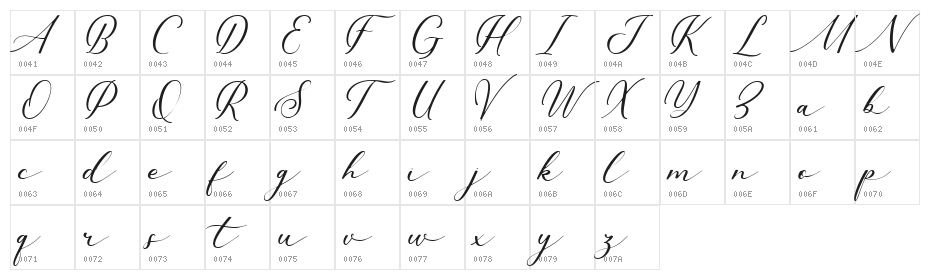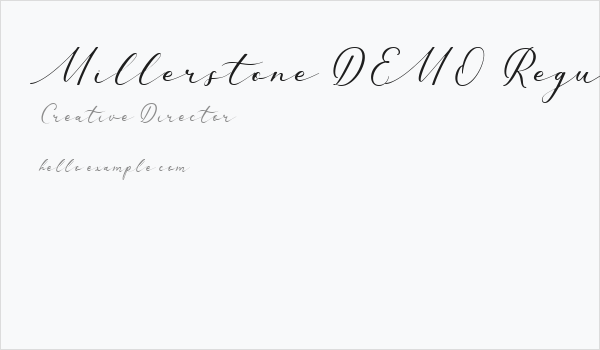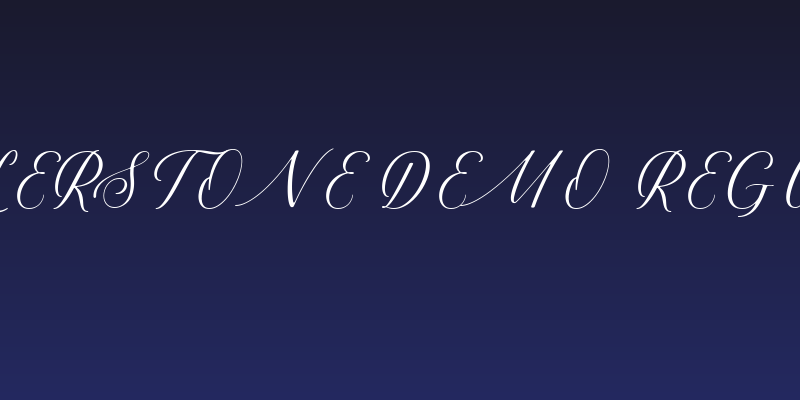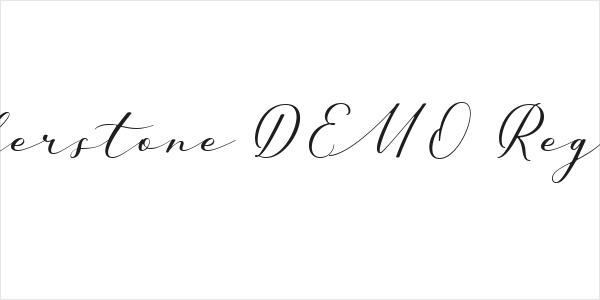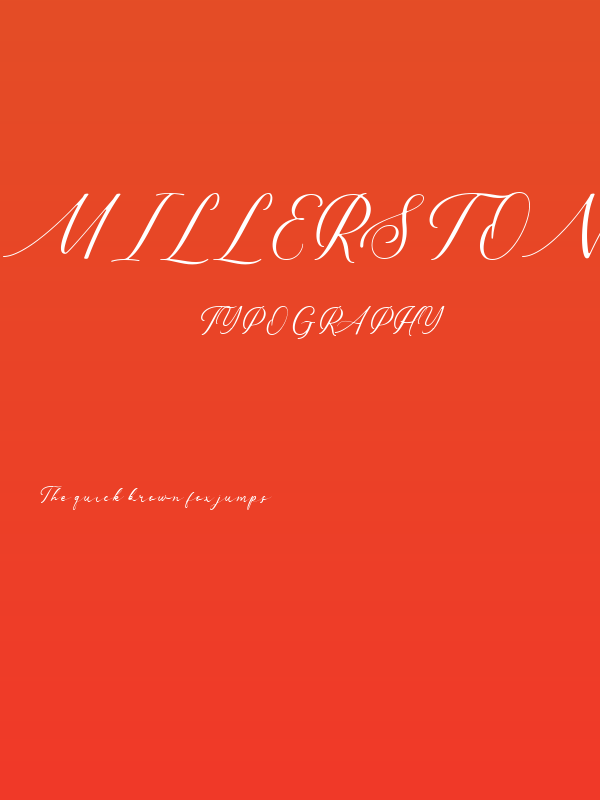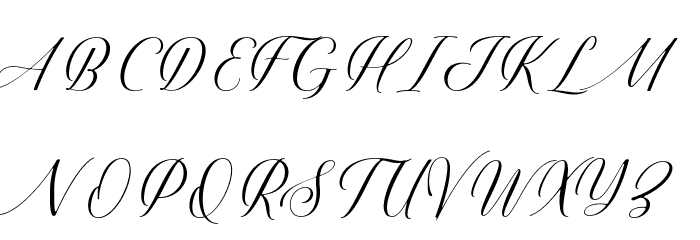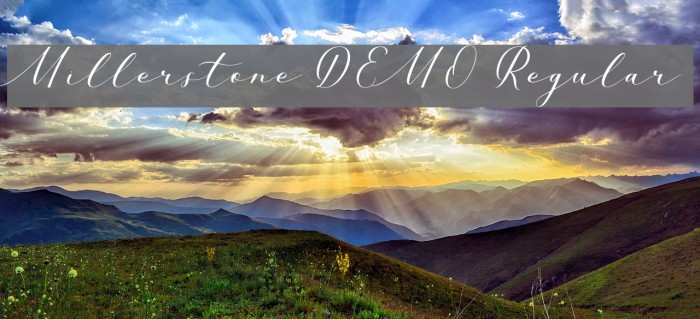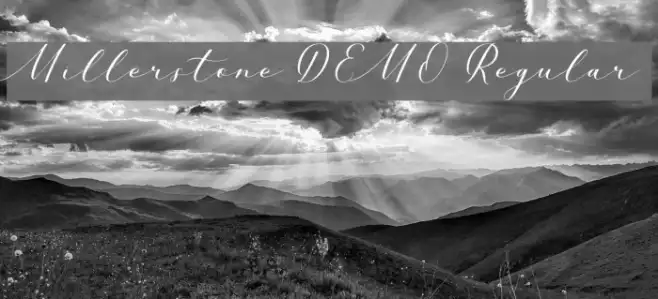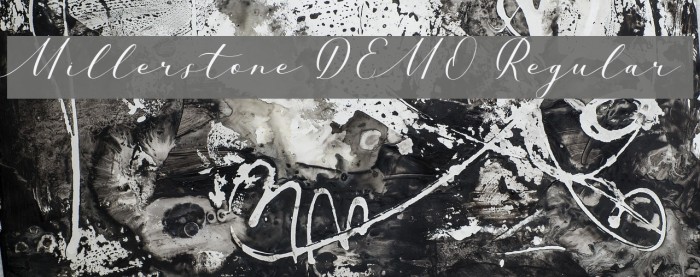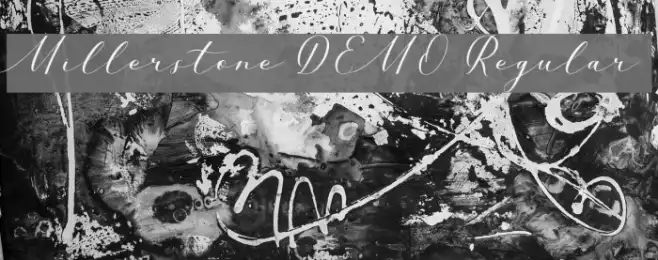
Millerstone DEMO Regular Font
Millerstone DEMO Regular Description
This elegant script font features flowing, cursive letterforms with a refined and sophisticated appearance. The characters are delicately crafted with smooth curves and graceful loops, giving it a luxurious and artistic feel. The uppercase letters are slightly more ornate, while the lowercase letters maintain a consistent fluidity. The font's thin strokes and high contrast between thick and thin lines add to its elegance, making it suitable for formal and decorative applications. Its overall style exudes a sense of classic beauty and timelessness, perfect for creating an upscale and polished look.
| Use Case | Logos, Invitations, Decorative Text |
| Proposed Projects | Ideal for wedding invitations, luxury branding, elegant stationery, and decorative headlines. |
| Author | Fonts by william jhordy |